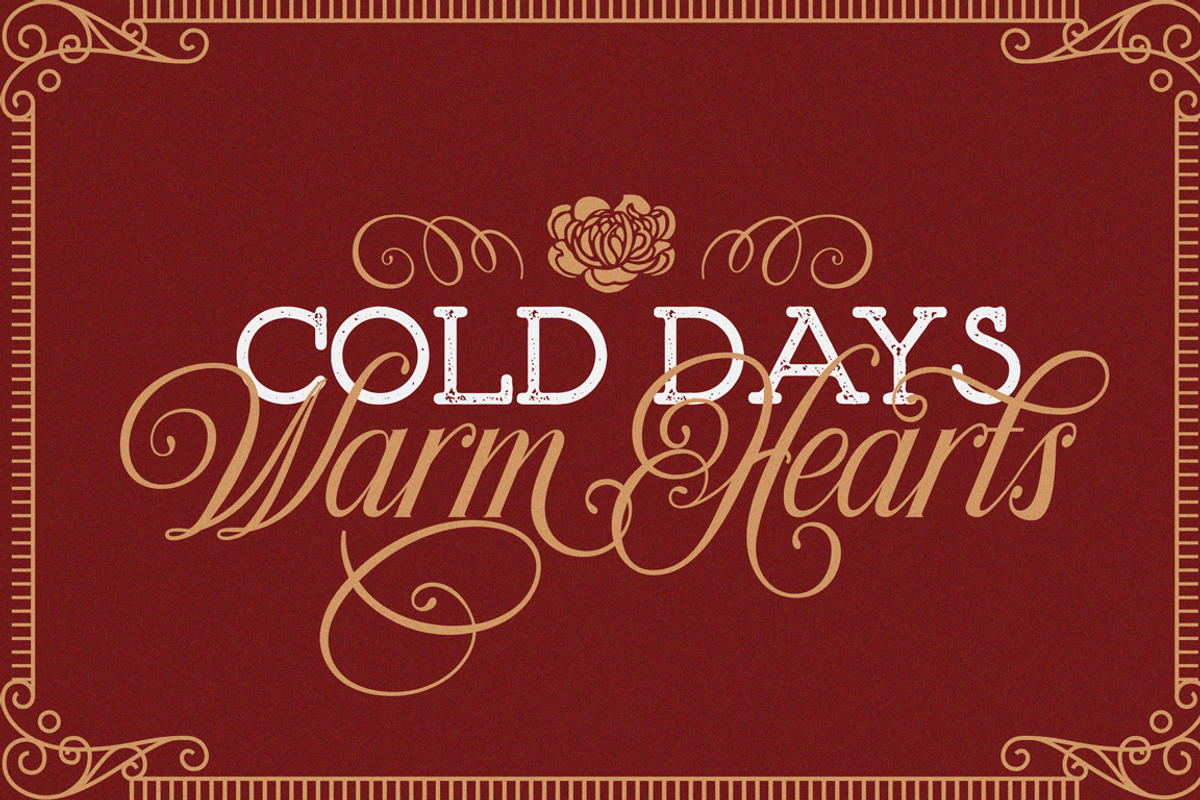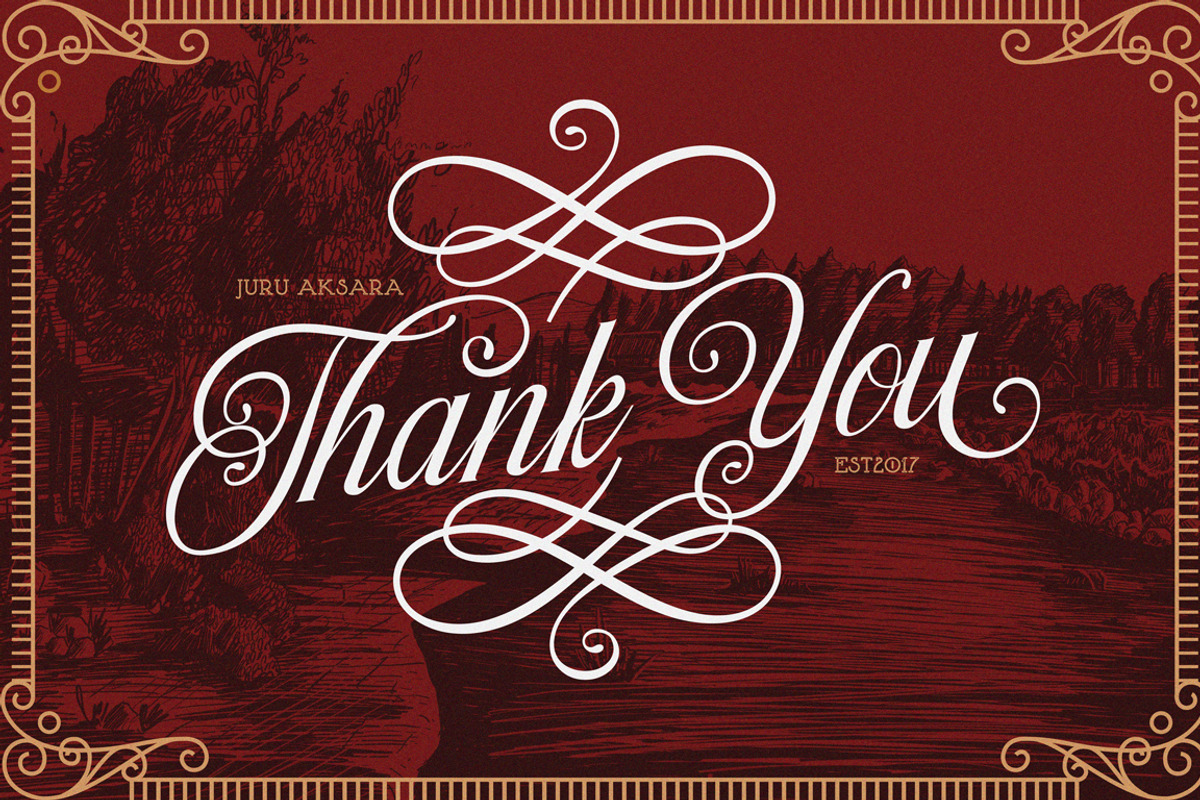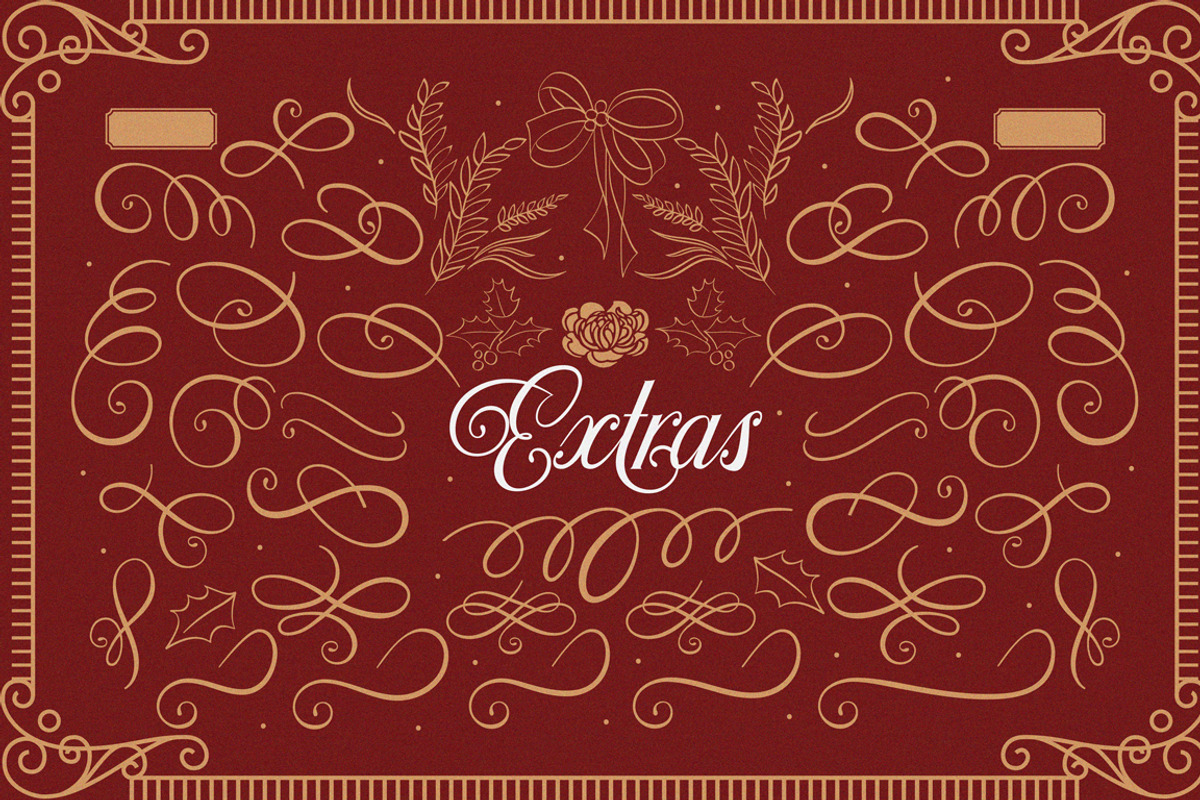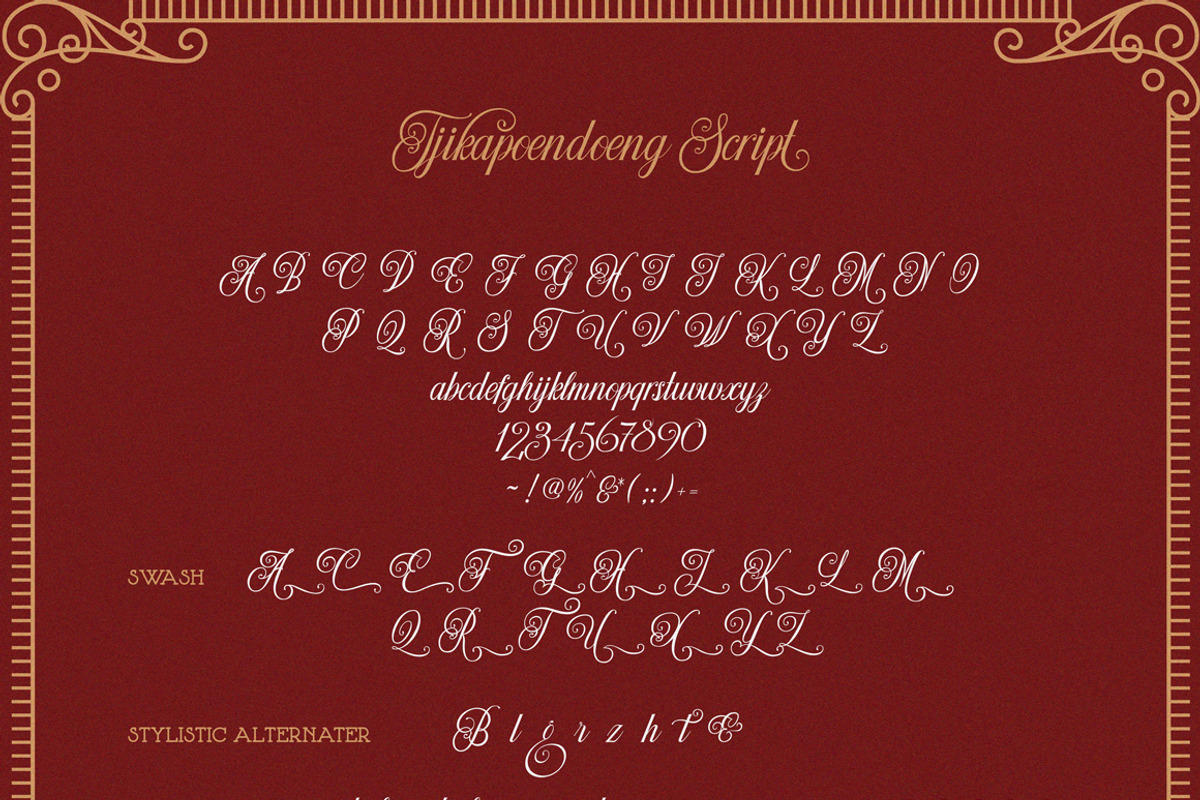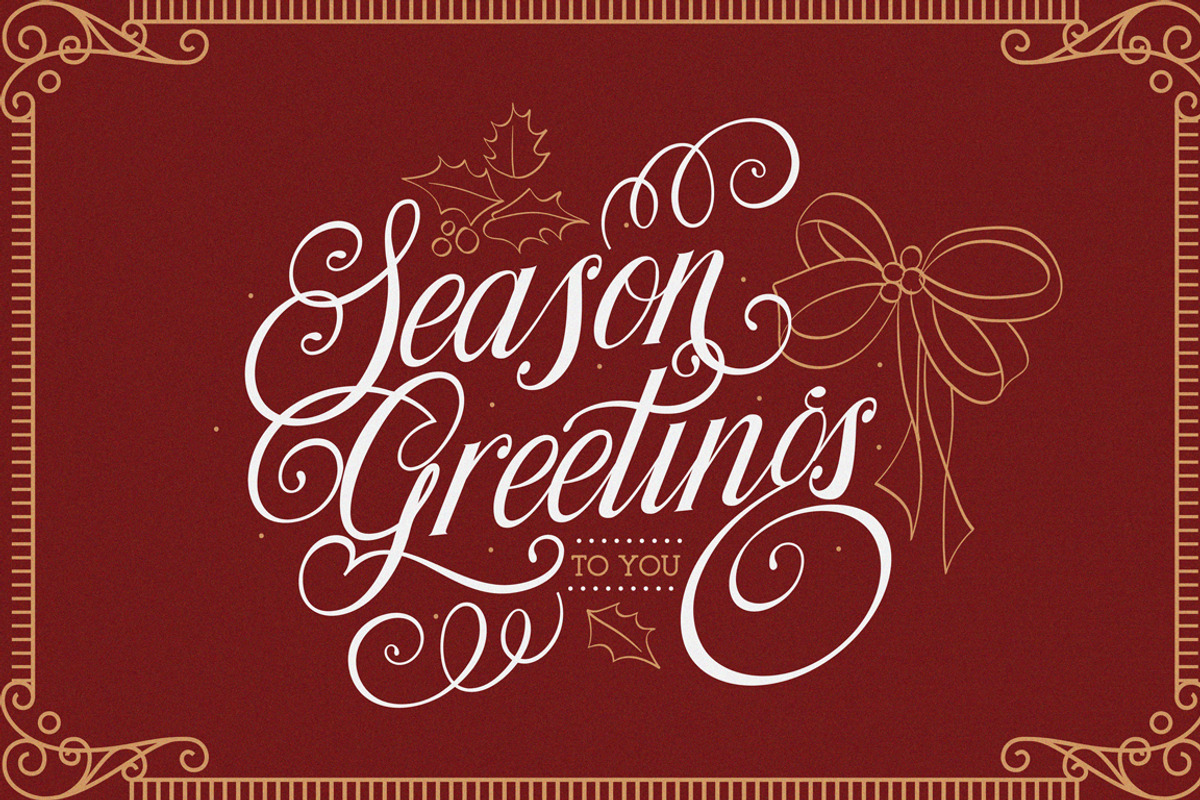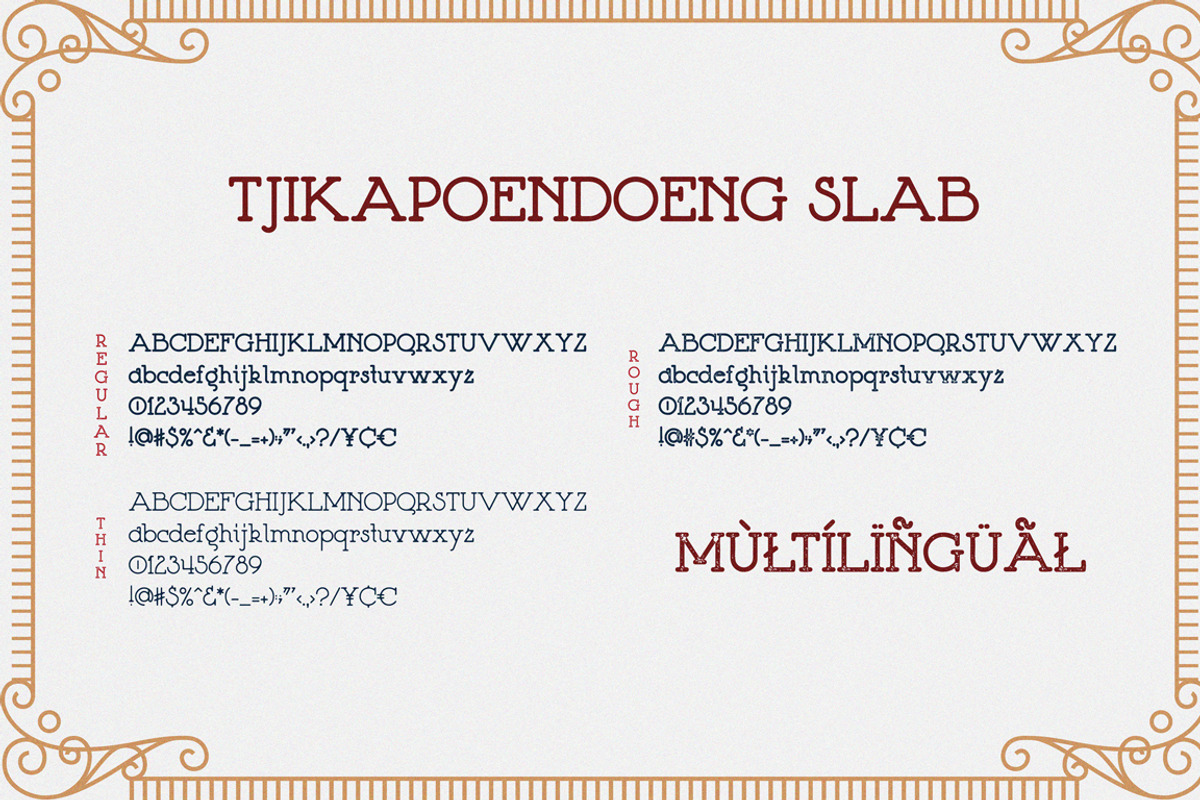
Tjikapoendoeng River+Extras
Tjikapoendoeng River Font Family inspired by the famous river in Bandung, Indonesia. The river has been witness to West Java's history since prehistoric, first civilization of sundanese ,colonial era, and now. Being the main source of water in supporting the life of Braga village, this river has become the vein of Bandung
Tjikapoendoeng font family adapted from Tjikapoendong characters. Stunning curve line that adds maximum attraction and firm line from slab serif that is ready to capture the eye of audiences on any work you produce by using Tjikapoendoeng Font Family.
Tjikapoendoeng font family has 4 font styles consisting of uppercase, lowercase and various alternative options that can be customize to your taste. It's very suitable for headings, logo type, quotes, apparel design, invitations, flyers, posters, greeting cards, product packaging, book cover, printed quotes, etc.